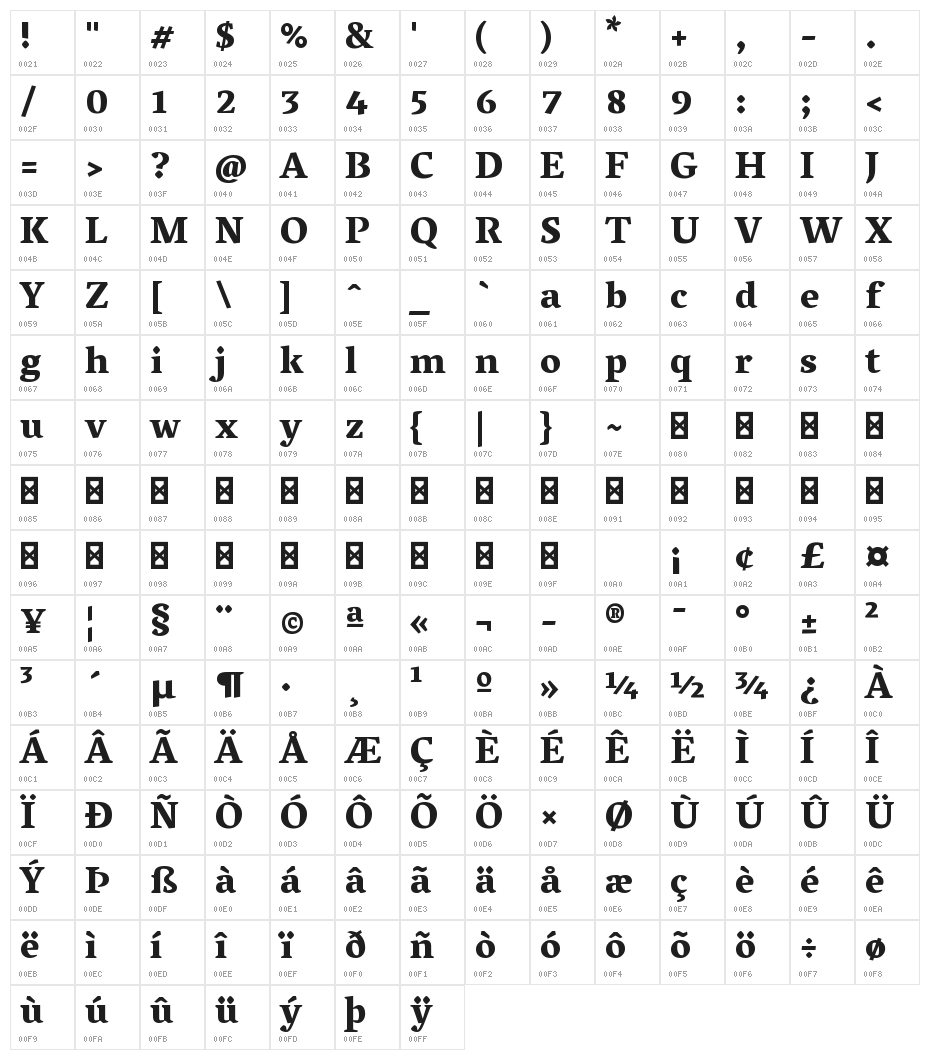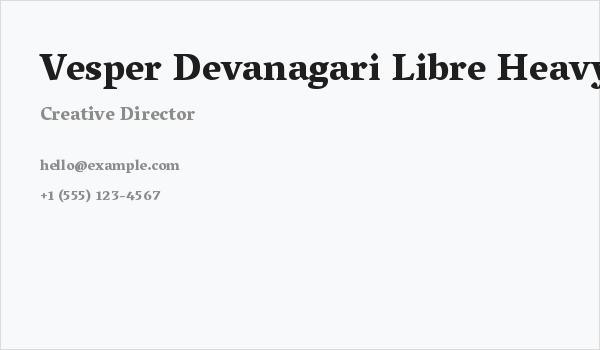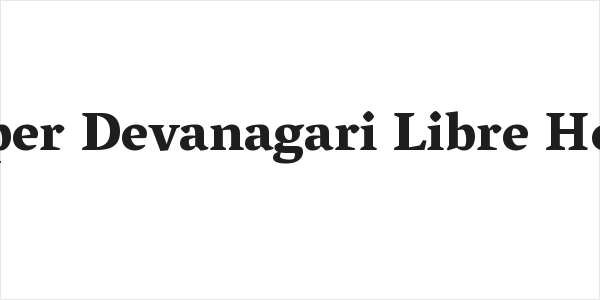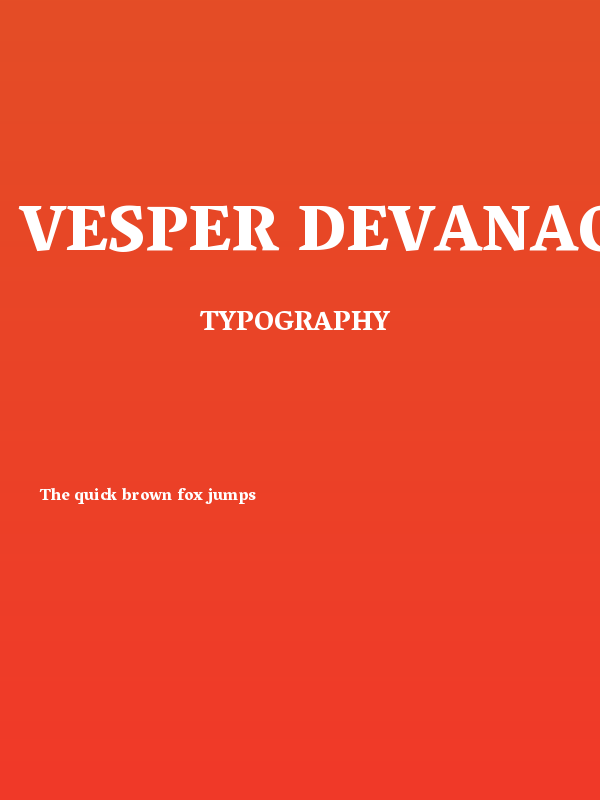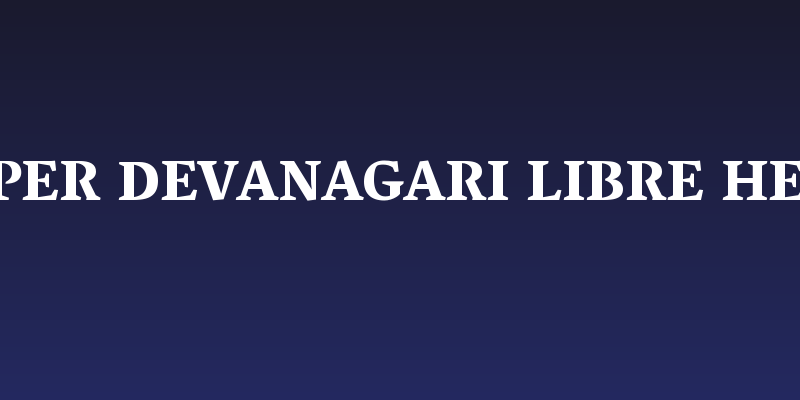
Vesper Devanagari Libre Heavy Font
Vesper Devanagari Libre Heavy Description
This font features a bold and commanding presence with its heavy weight and strong serif design. The characters are well-defined with a classic serif style, offering a sense of tradition and authority. The uppercase letters are robust and impactful, while the lowercase letters maintain a consistent weight, providing a harmonious balance. The numerals are clear and legible, making them suitable for various applications. Special characters are included, enhancing the font's versatility. Overall, this font exudes a sense of reliability and professionalism, making it ideal for projects that require a strong visual impact.
| Use Case | Headlines, Logos, Editorial Design |
| Proposed Projects | Ideal for headlines, branding, editorial design, and formal invitations. |